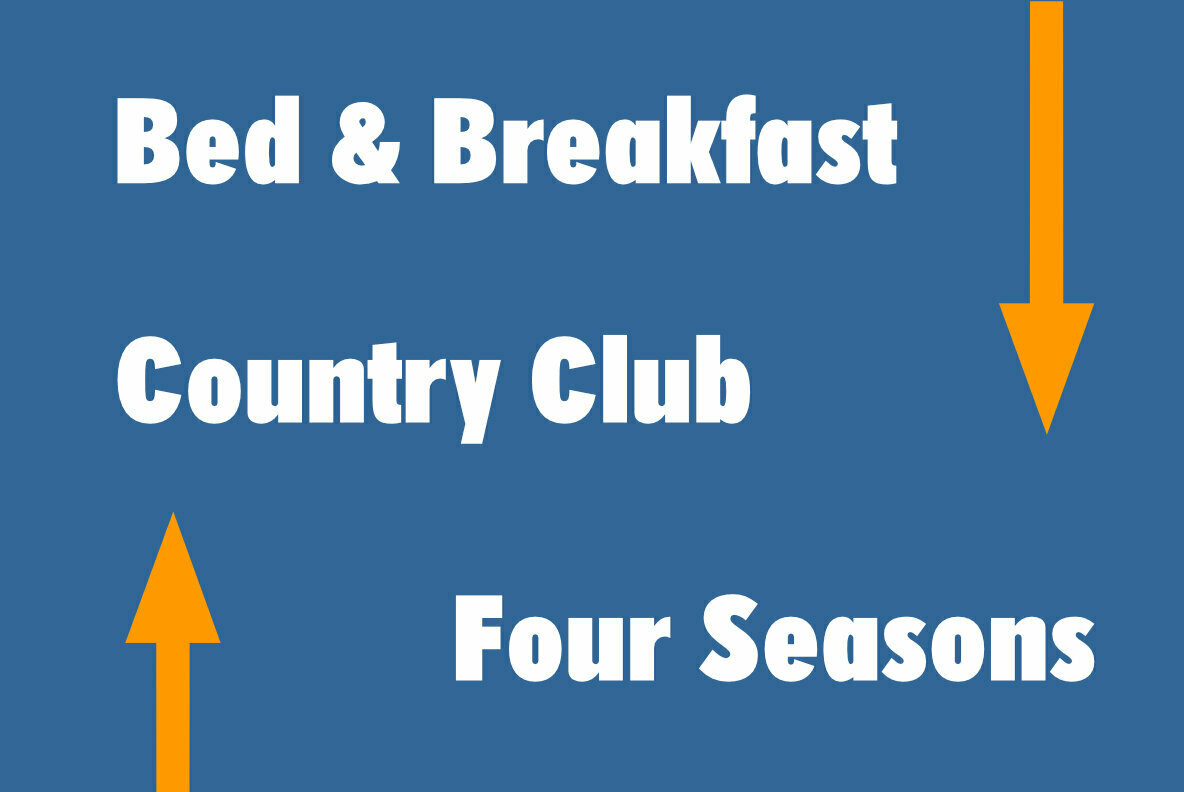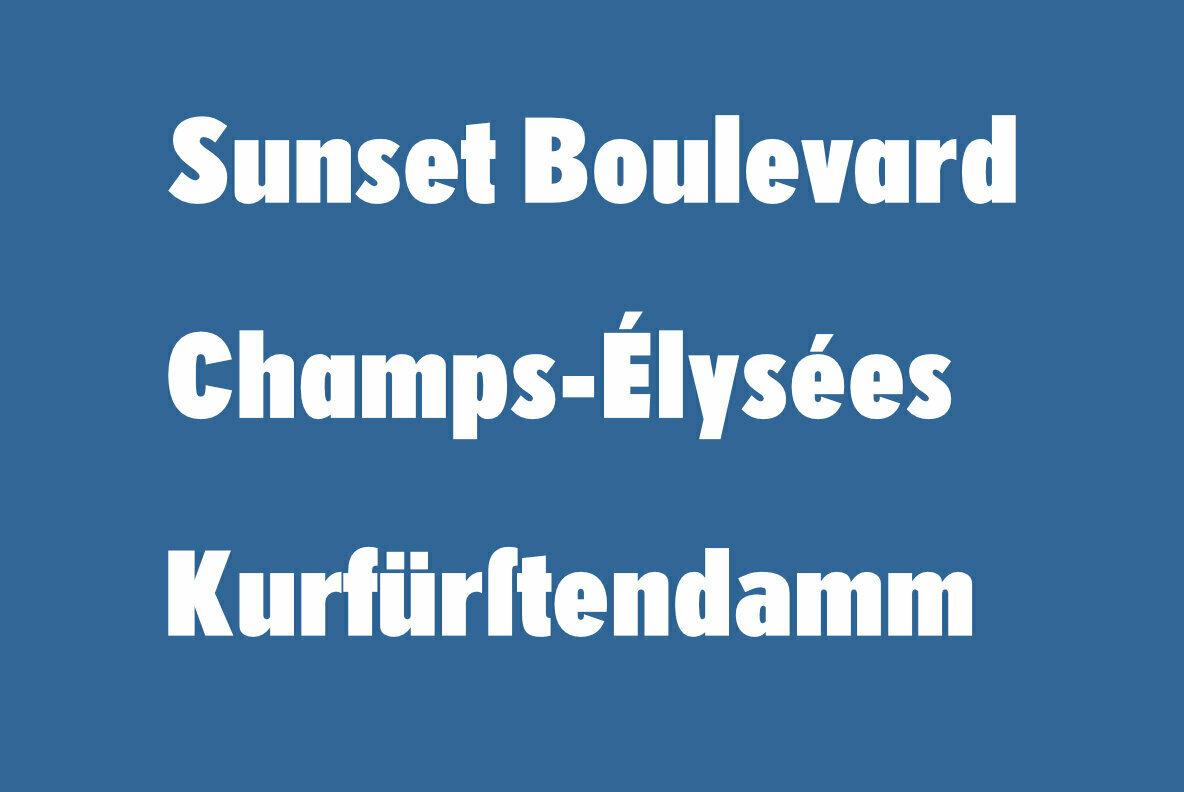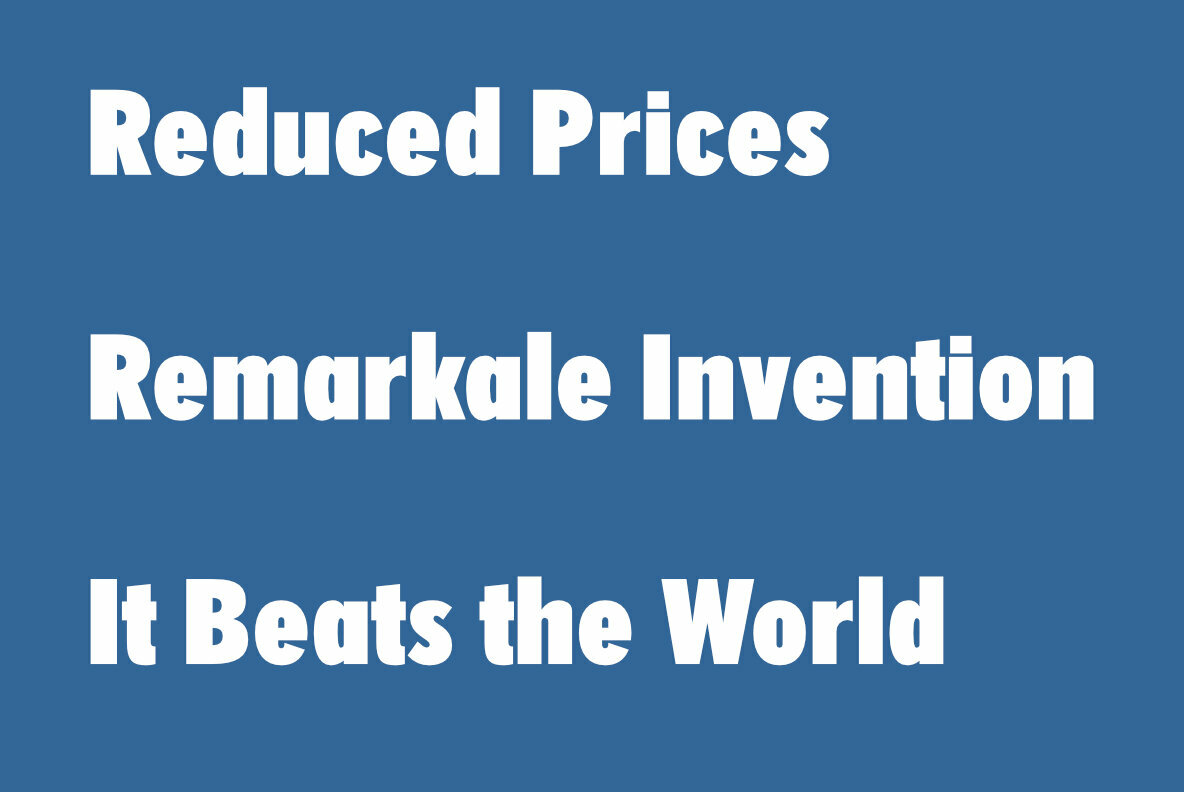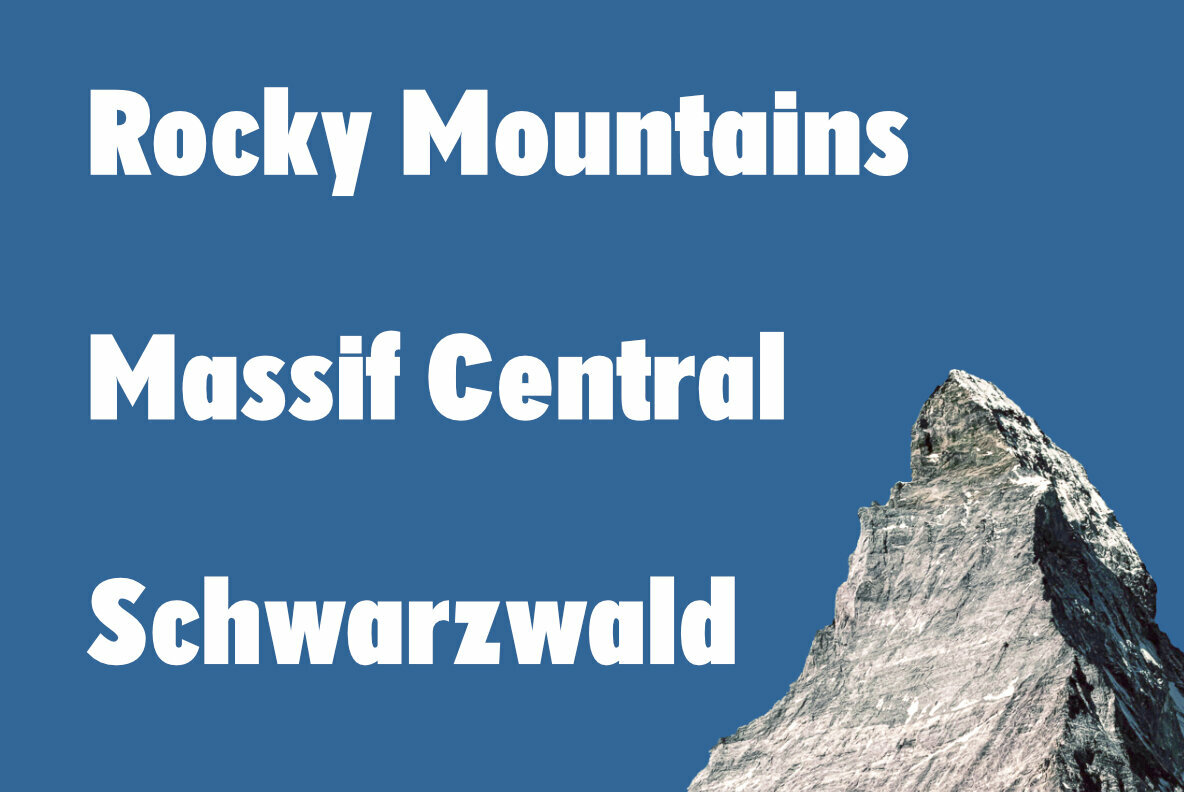
RMU Gong Font
RMU Gong
Based upon an Arno Drescher design for Schriftguss, RMU Gong was freshly redrawn and redesigned and is intended for being a splendid font for headlines, subtitles, ads, posters, etc.